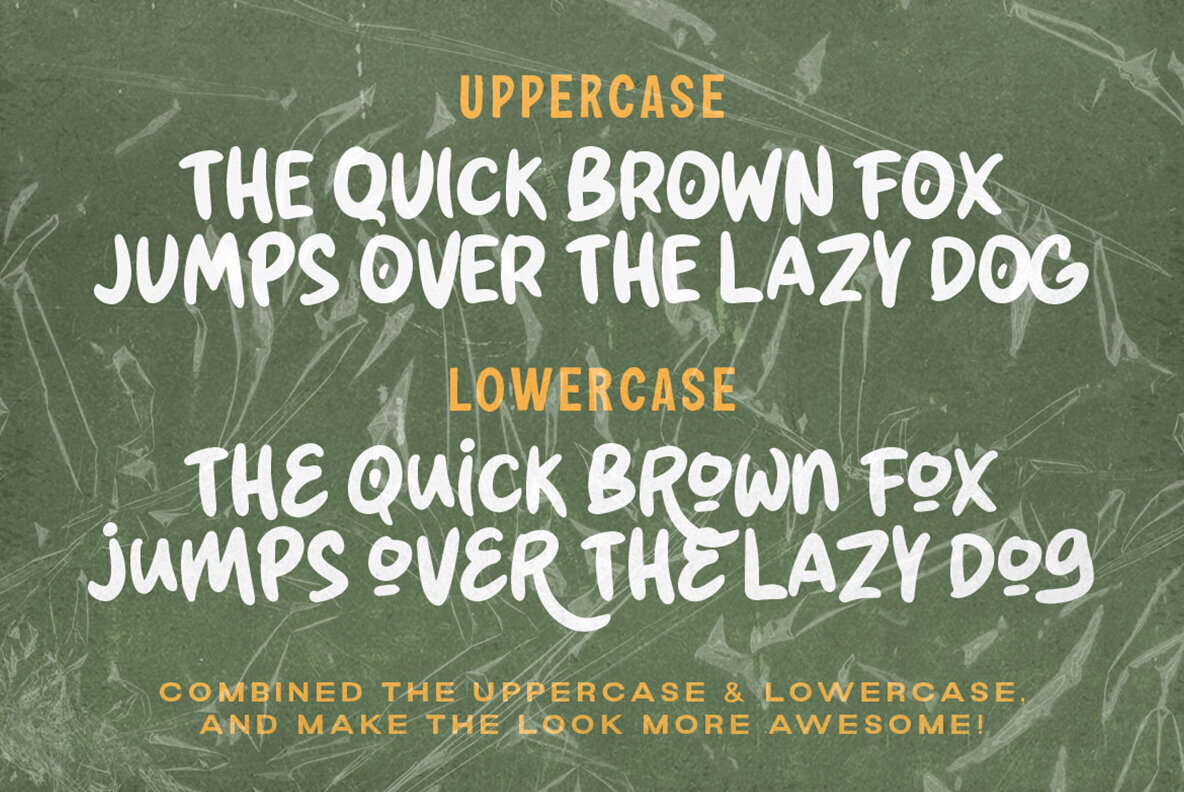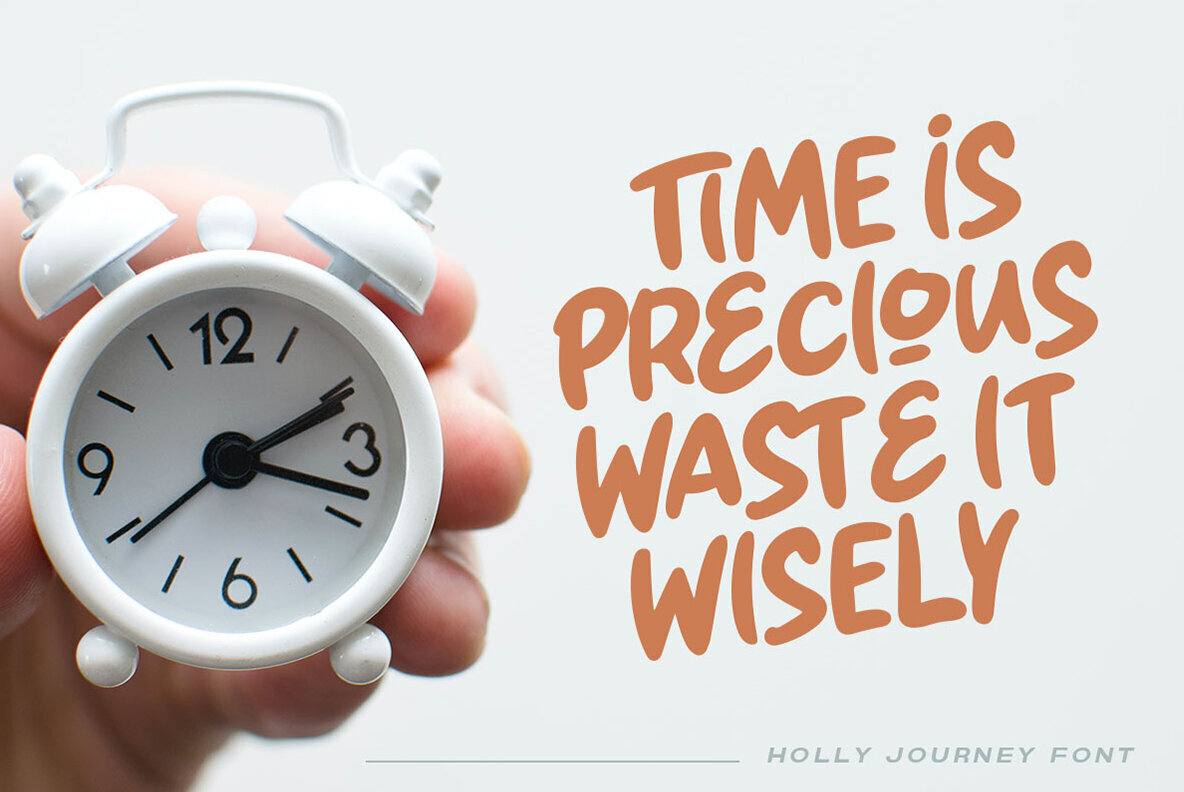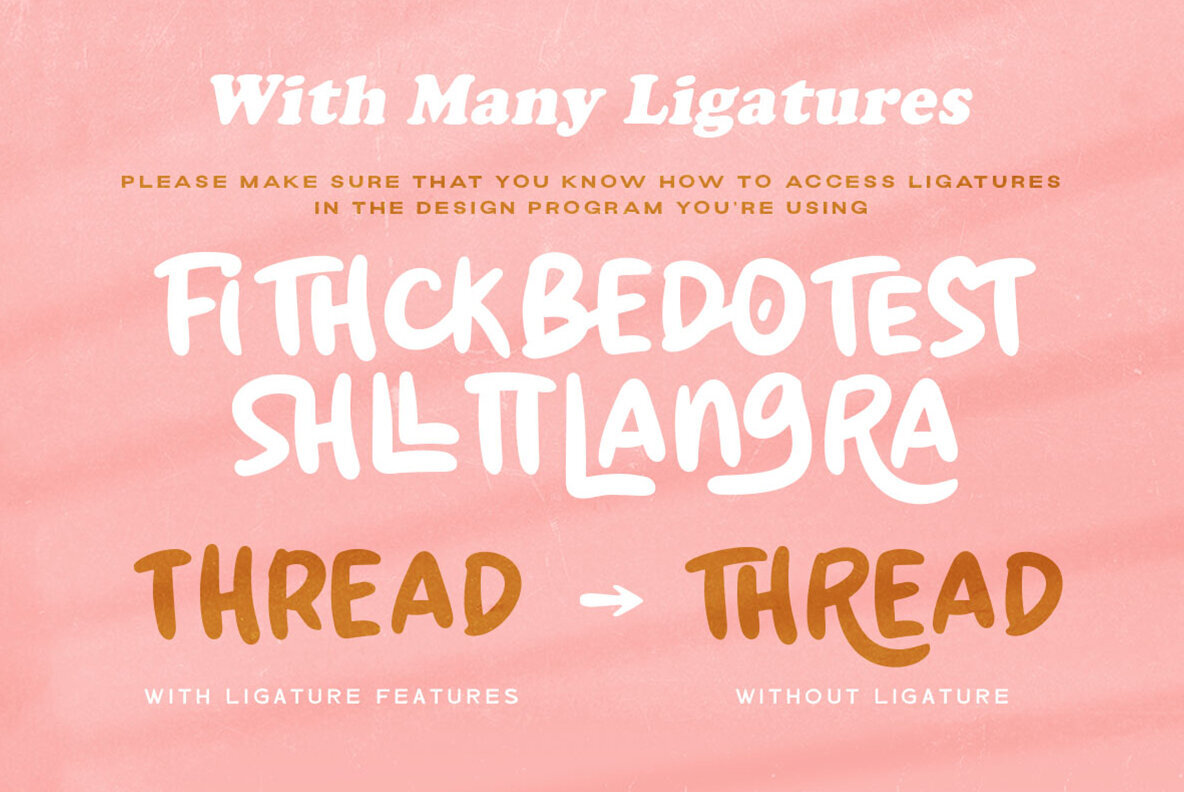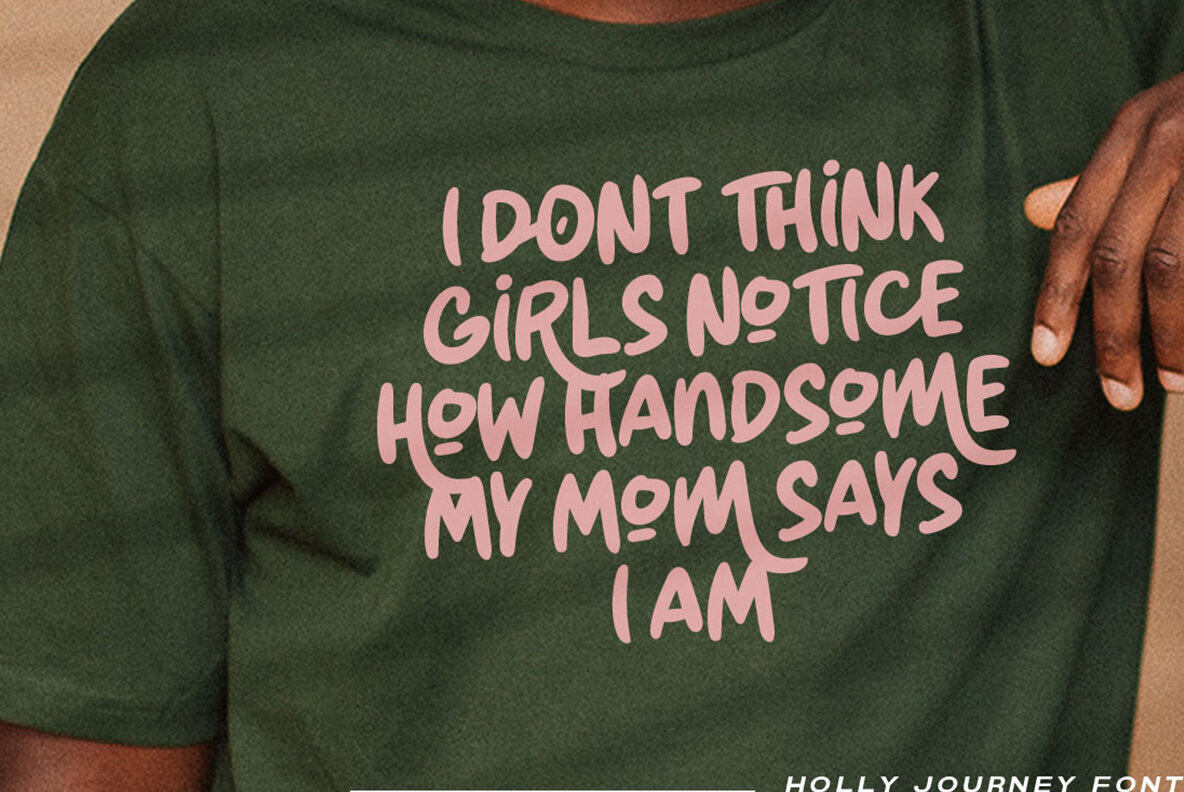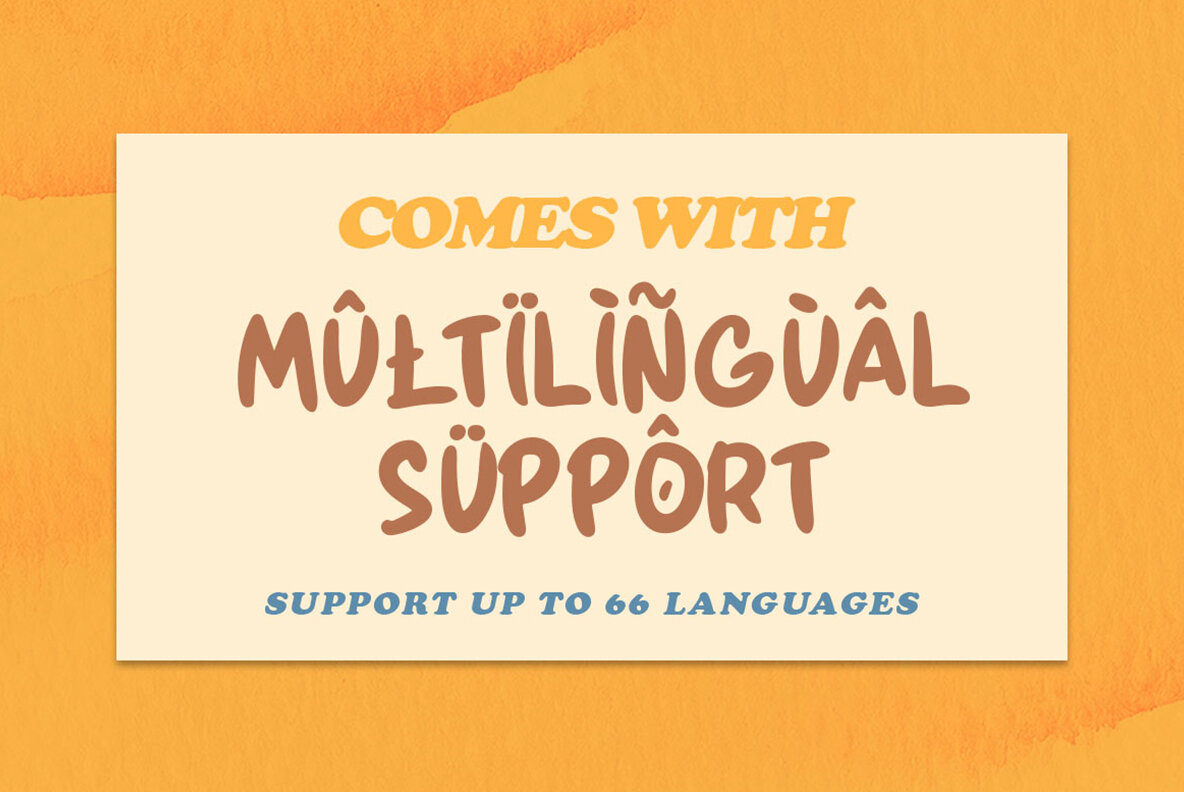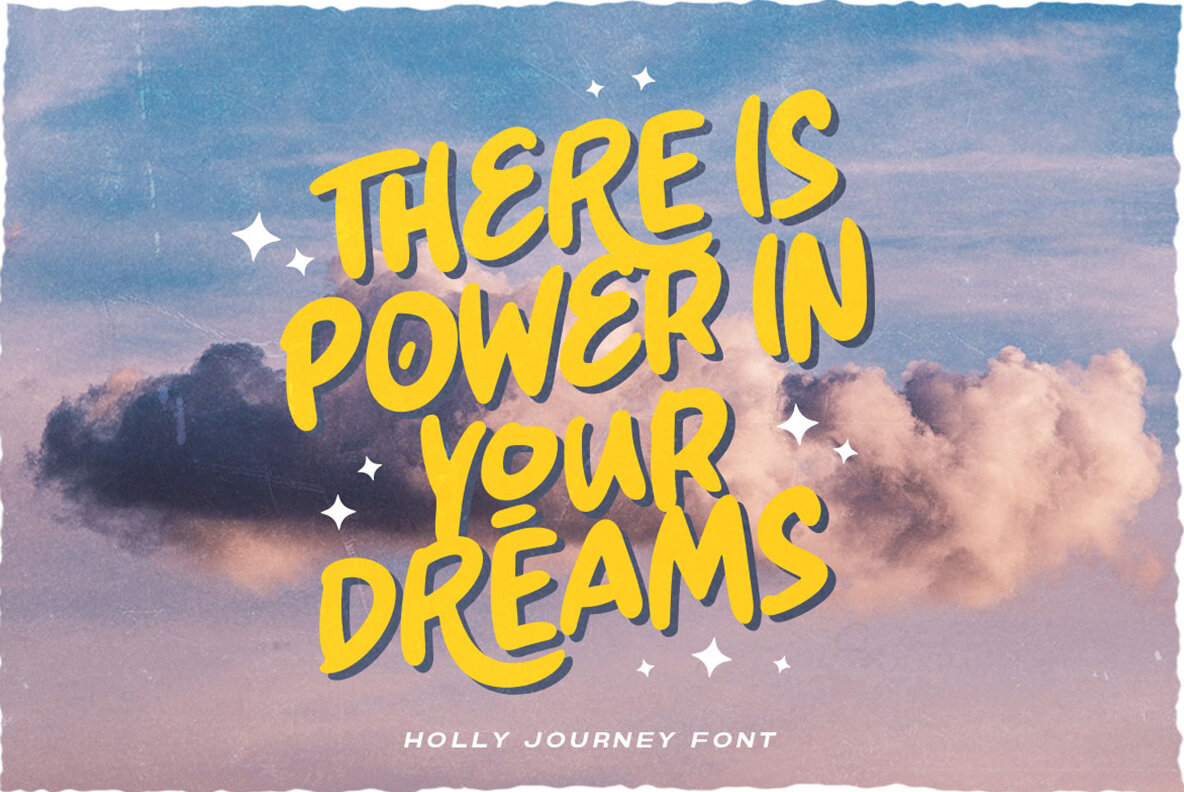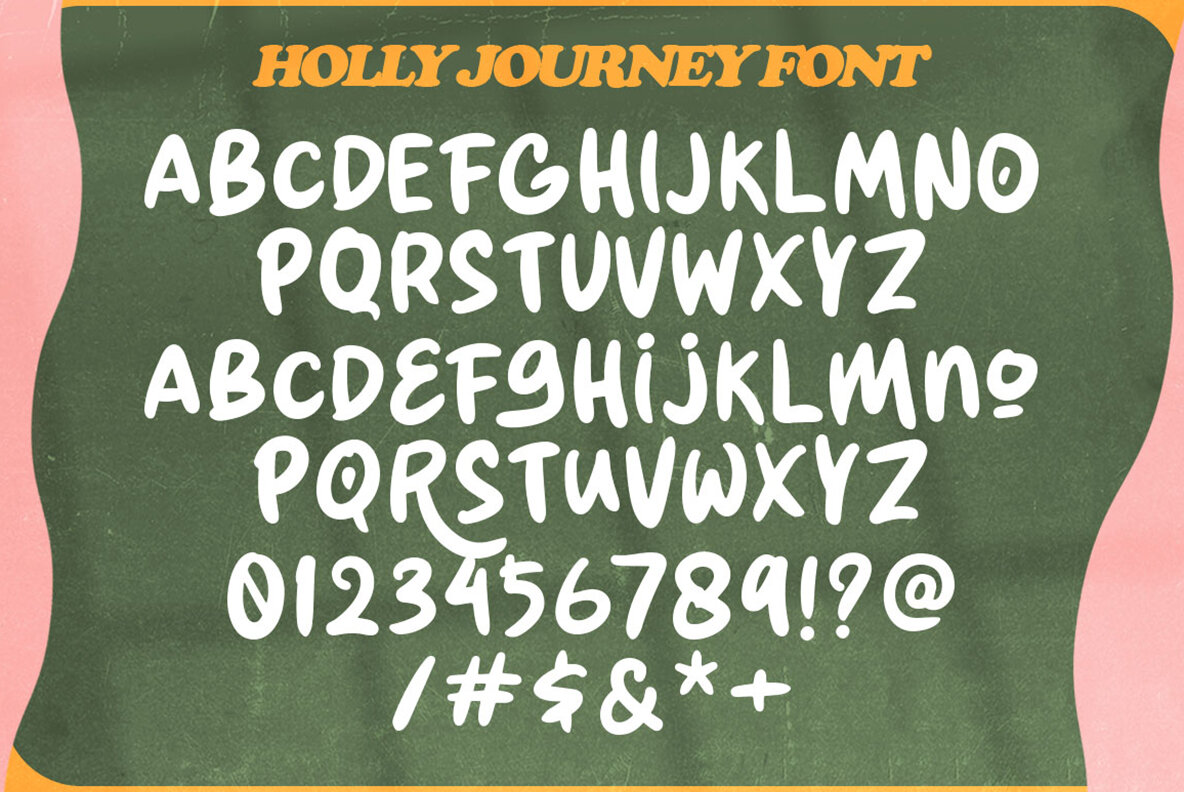
Holly Journey Font
Holly Journey Regular
Holly Journey by Letterhend Studio captures the essence of playful creativity. This display handwritten font is imbued with unique strokes that bring charm and character to titles. Perfect for projects on storybook narratives or children-themed content, this typeface stands out with its lively demeanor, without sacrificing readability in more formal contexts. Its versatility extends to numerous applications, including invitations, labels, logos, magazines, books, greeting and wedding cards, packaging, fashion, makeup, stationery, novels, and various advertising purposes. Holly Journey adapts seamlessly, providing an engaging visual element wherever it's used.Holly Journey: A Playful Handwritten Font